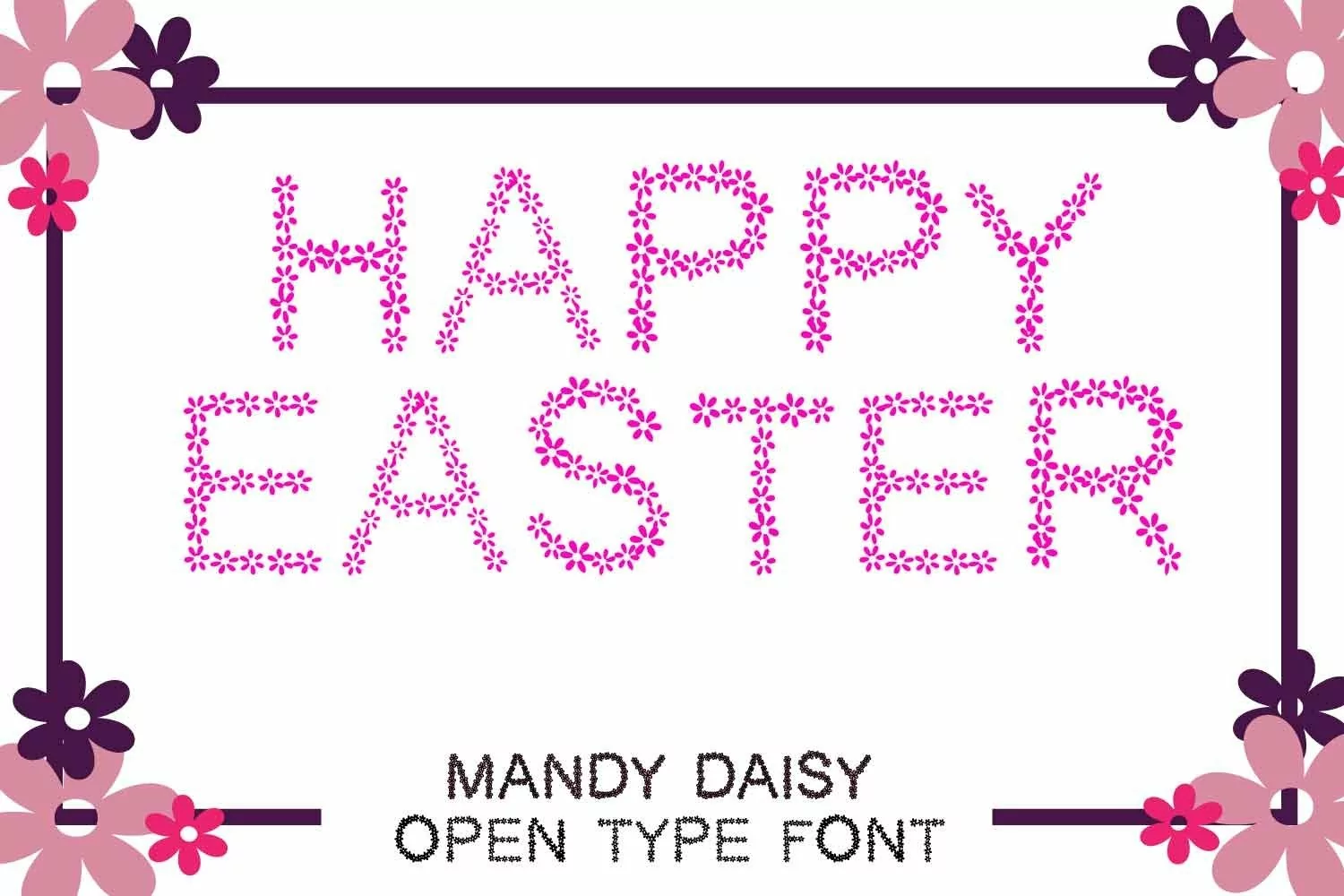
Mandy Daisy open-type font that is created with little daisy flowers. This font is perfect for your Easter and spring projects. This would font would also work great with pen tools for the foil quill on your digital craft cutting machine. This font comes in OTF format
MandyDaisy